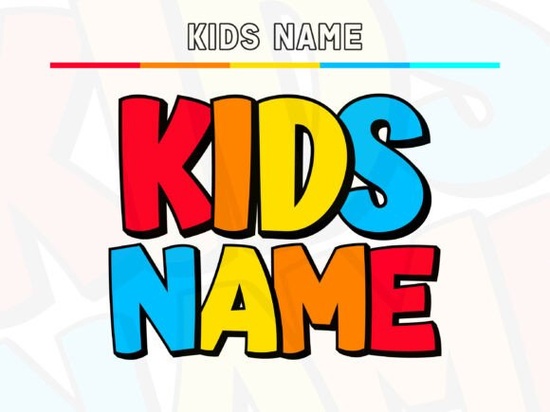
If you're looking for a font that can add a cheerful and playful touch to your designs, the Kids Name Font is a great choice. This color display alphabet is designed to stand out with its chunky, rounded glyphs and bold black outline, making it perfect for a variety of creative projects.
Why Choose Kids Name Font?
The Kids Name Font is built to bring a vibrant and lively feel to any design. Each character has a generous x-height and deep counters, which makes the text easy to read and visually appealing. The font also features an offset shadow, giving it a sticker or comic book-like pop. This combination of elements makes it ideal for creating eye-catching headlines and titles.
Perfect for Creative Projects
Whether you're designing birthday sets, classroom posters, party banners, or stickers, the Kids Name Font adds a bright and upbeat vibe. It's also Cricut-friendly, making it easy to use for decals and iron-ons. The flat fills make recoloring effortless, so you can customize the font to match your project's theme.
Versatile and Kid-Safe
The Kids Name Font is not just fun; it's also versatile. You can use it in one color by utilizing the base layer only, or take advantage of the layered style for a more colorful and dynamic look. Its clean contours and kid-safe design make it a great choice for children’s products, toy packaging, and even YouTube thumbnails.
Designing with Kids Name Font
When using the Kids Name Font, you'll find that the playful width swing and light baseline bounce give names a lively rhythm. This makes it perfect for creating engaging and memorable designs. Whether you're working on a book cover, a magazine layout, or branding for children’s products, this font will help you turn simple words into candy-colored headlines.
Comparing with Other Colorful Fonts
While the Kids Name Font stands out with its unique and cheerful design, it's worth comparing it with other colorful fonts to see which one best fits your project. For example, the Super Font offers a different style with its bold and modern look, while the Daisy Font brings a more delicate and whimsical touch. Each font has its own strengths, so consider the specific needs of your project when making your selection.
Using Kids Name Font in Different Applications
The Kids Name Font is incredibly versatile and can be used in a wide range of applications. Here are some ideas:
- Birthday Invitations: Create fun and colorful invitations that kids and parents will love.
- Classroom Decorations: Add a playful touch to classroom posters, name tags, and bulletin boards.
- Party Banners: Design eye-catching banners for birthday parties, school events, and family gatherings.
- Stickers and Decals: Use the font for custom stickers and decals that can be applied to various surfaces.
- T-Shirts and Apparel: Create unique and personalized t-shirts, hats, and other clothing items.
- Toy Packaging: Add a fun and engaging element to toy packaging and labels.
- YouTube Thumbnails: Make your video thumbnails stand out with colorful and catchy headlines.
- Book Covers and Magazines: Design vibrant and attention-grabbing covers for children’s books and magazines.
Practical Tips for Using Kids Name Font
To get the most out of the Kids Name Font, here are some practical tips:
- Experiment with Colors: Try different color combinations to find the perfect match for your project.
- Use Layered Styles: Take advantage of the layered style to create more dynamic and colorful designs.
- Keep It Simple: Sometimes, less is more. Use the base layer for a clean and simple look.
- Test on Different Backgrounds: See how the font looks on various backgrounds to ensure it stands out.
- Combine with Other Fonts: Pair the Kids Name Font with complementary fonts to create a balanced and cohesive design.